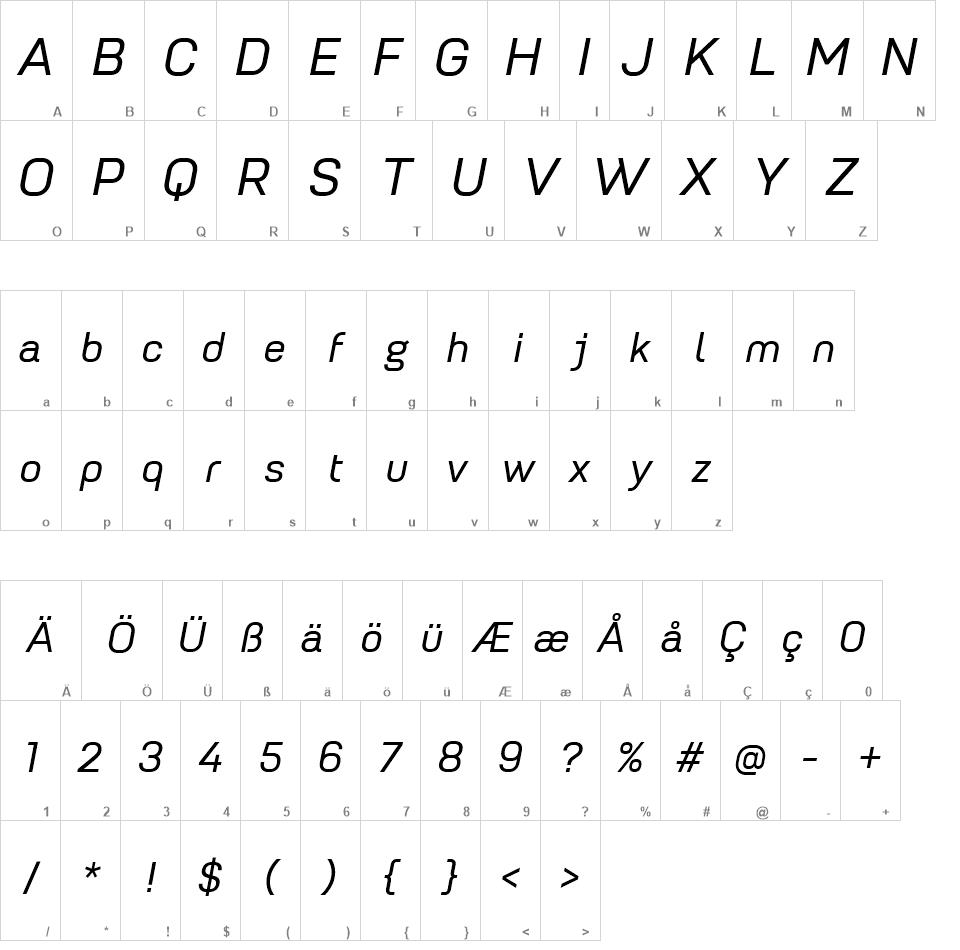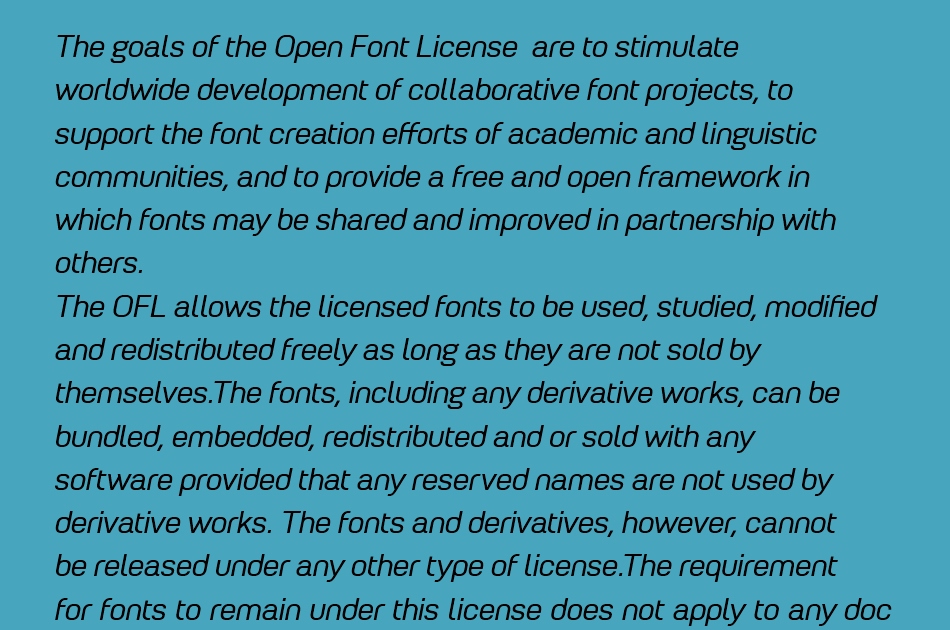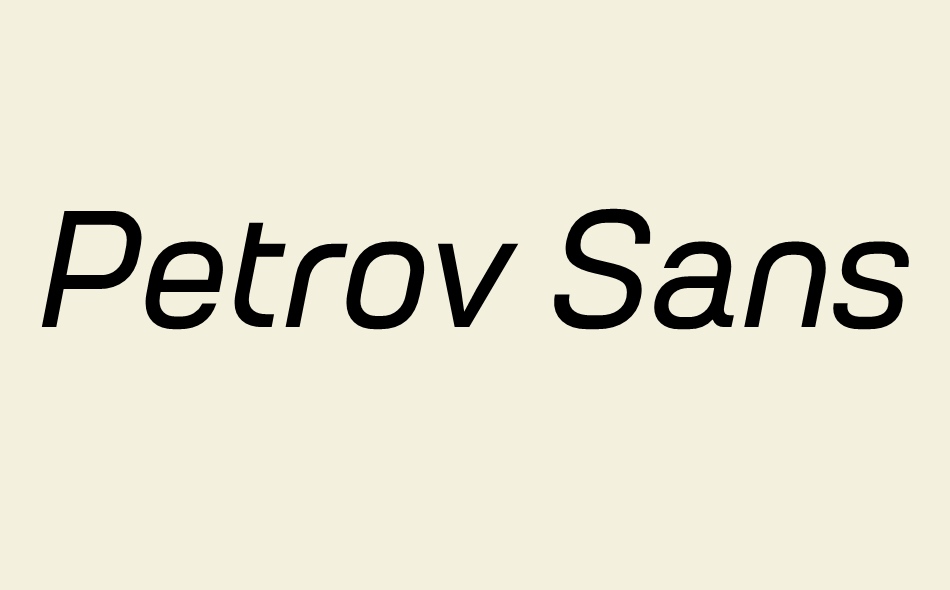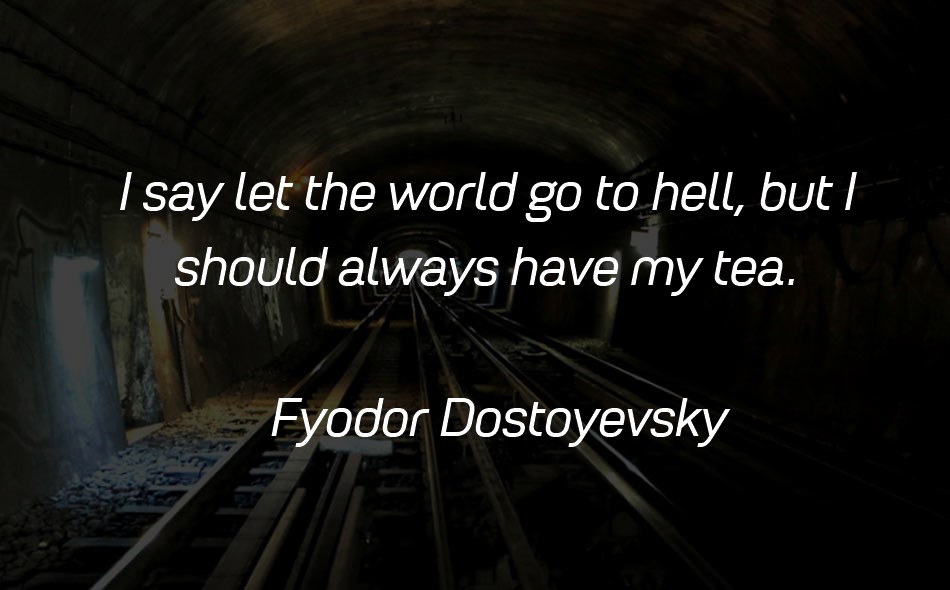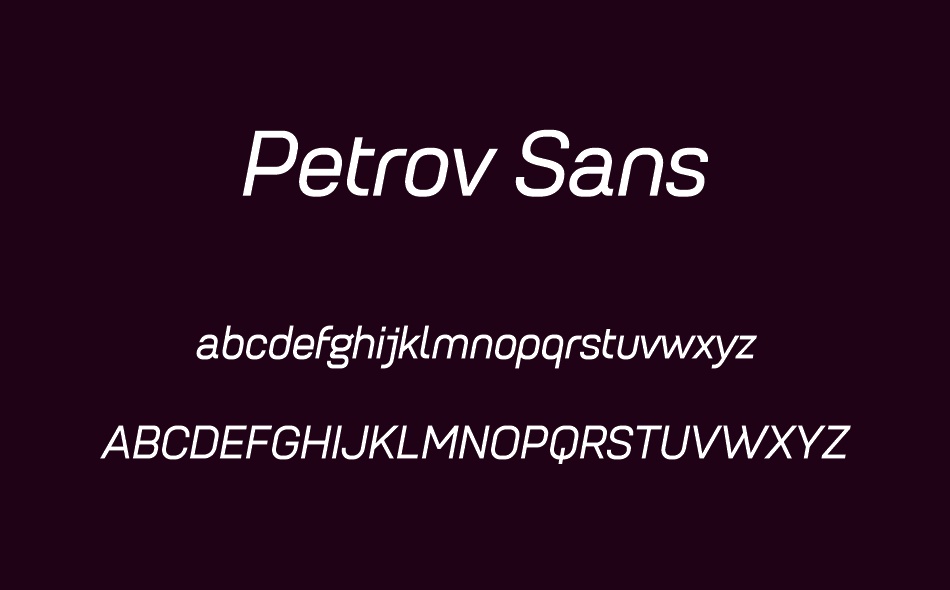
Petrov Sans font
Petrov Sans Font Family is a font with a geometric approach that is out of this world. Featuring 9 uprights and 9 italics, Petrov Sans Font Family is a versatile typeface that will elevate any design project.